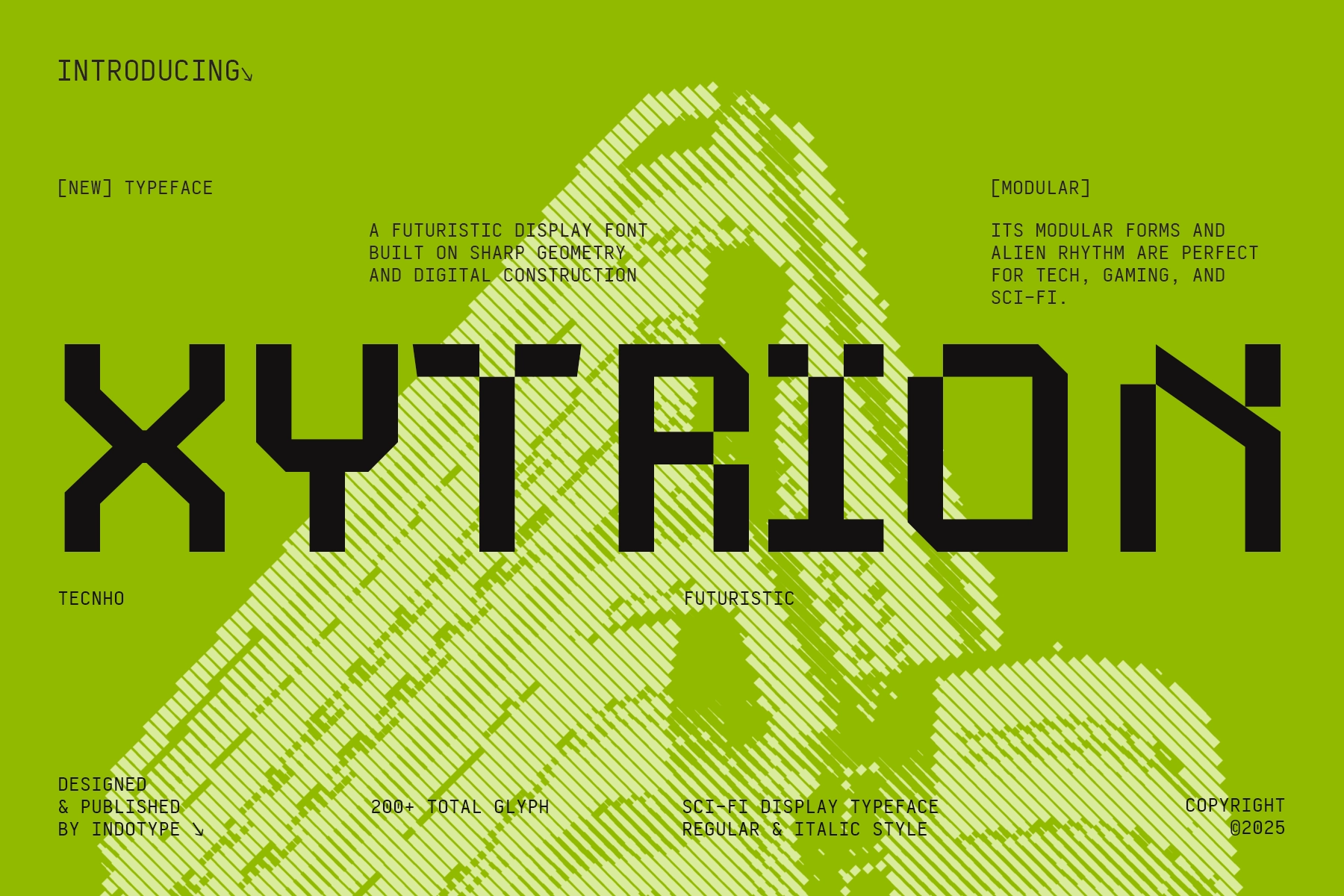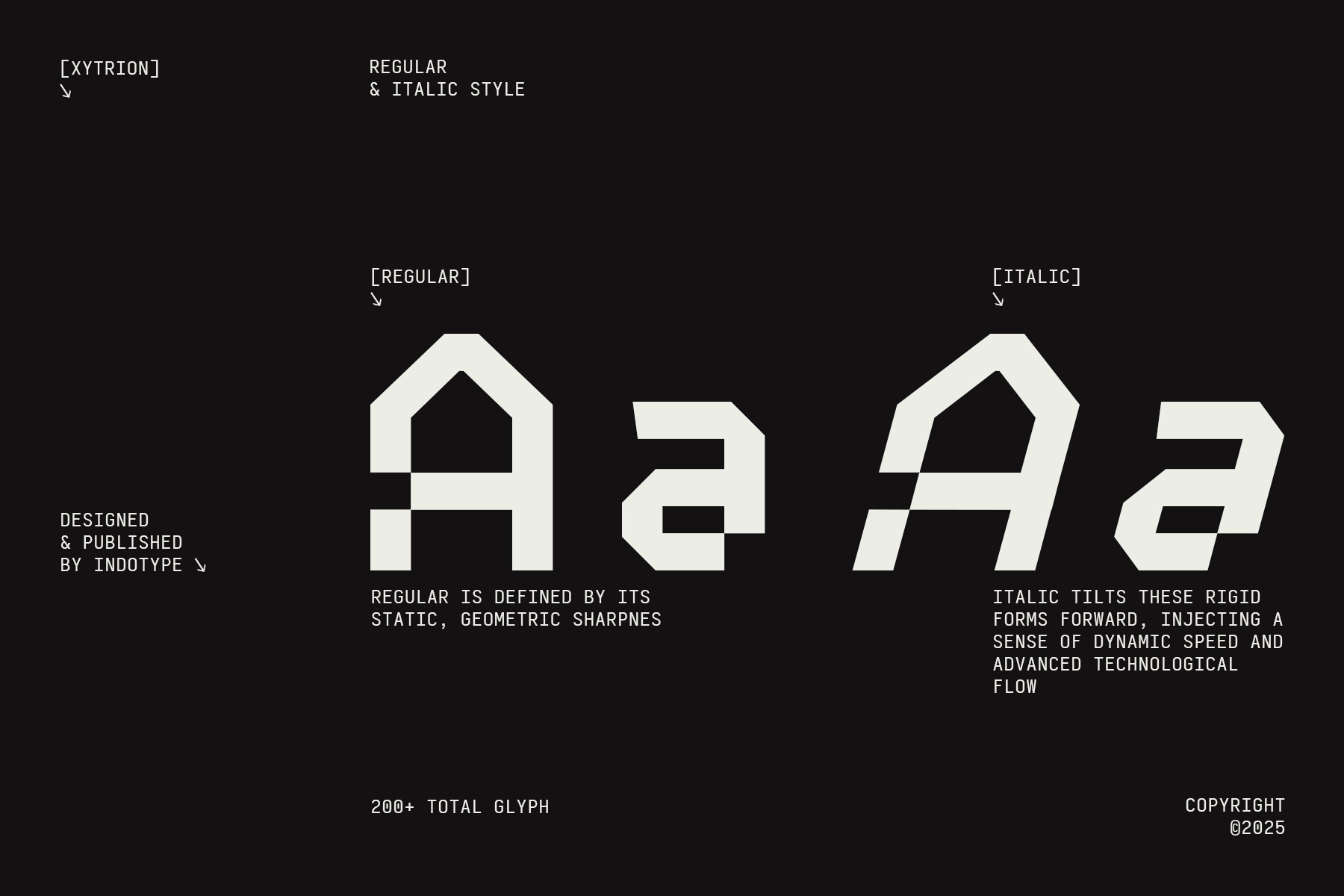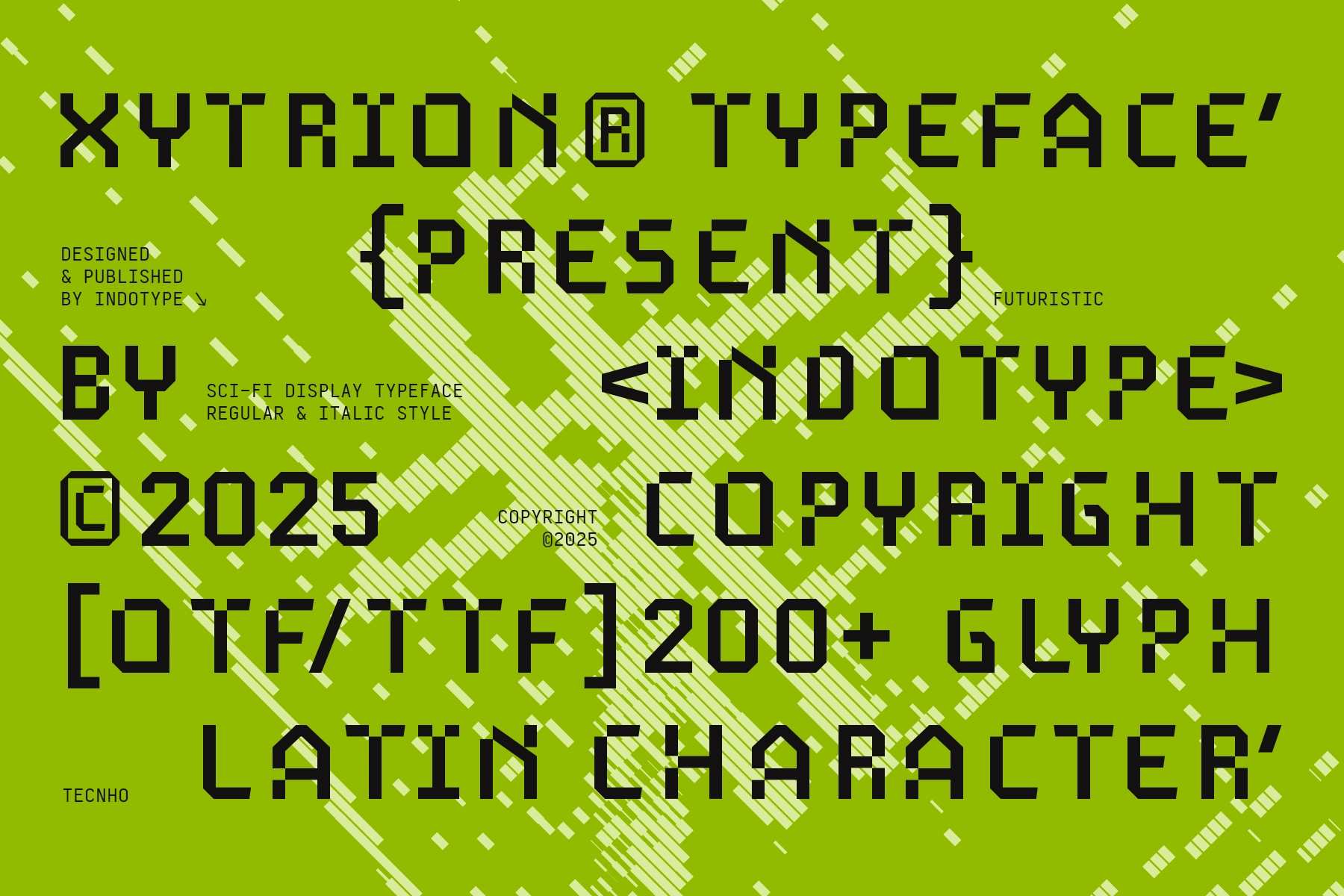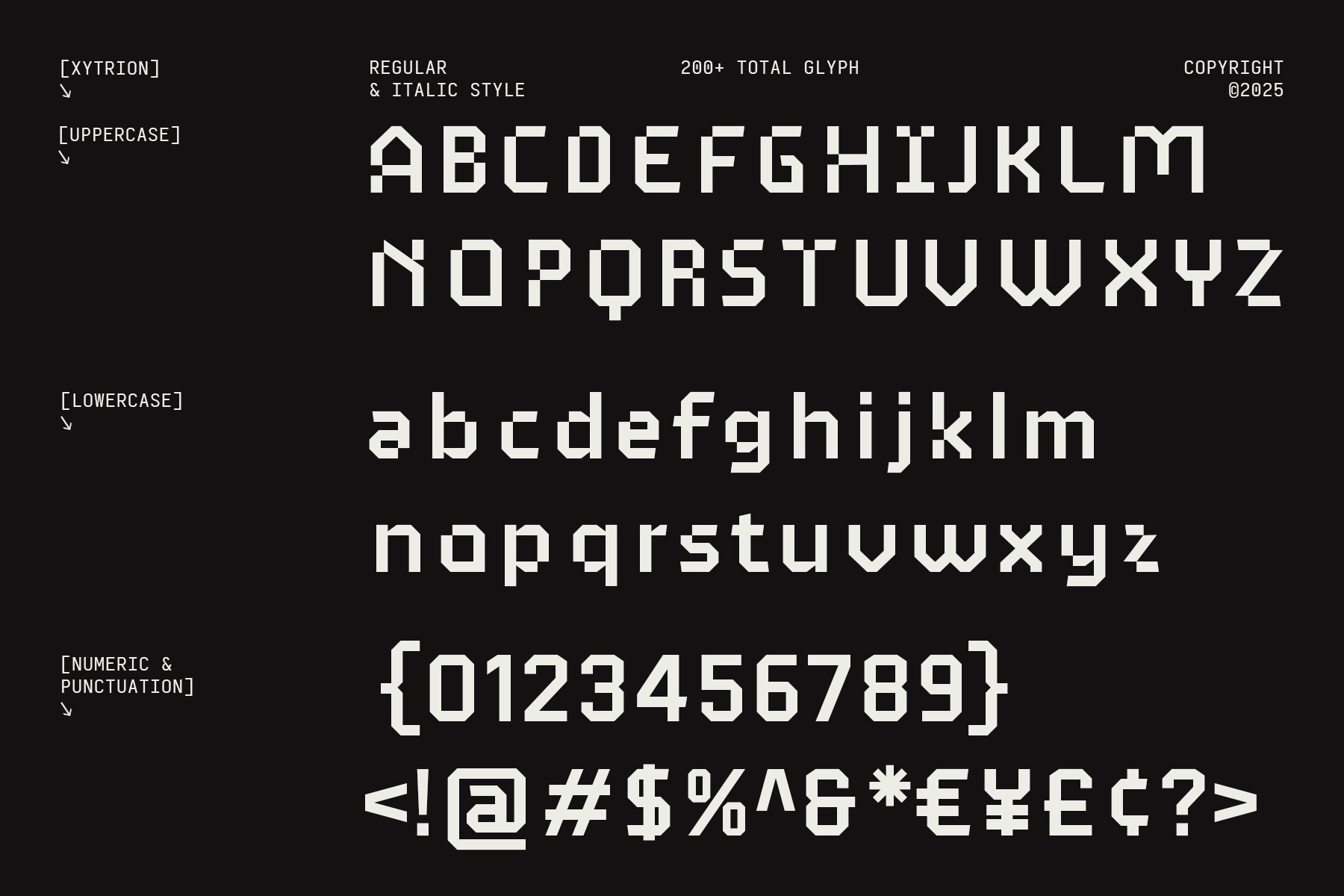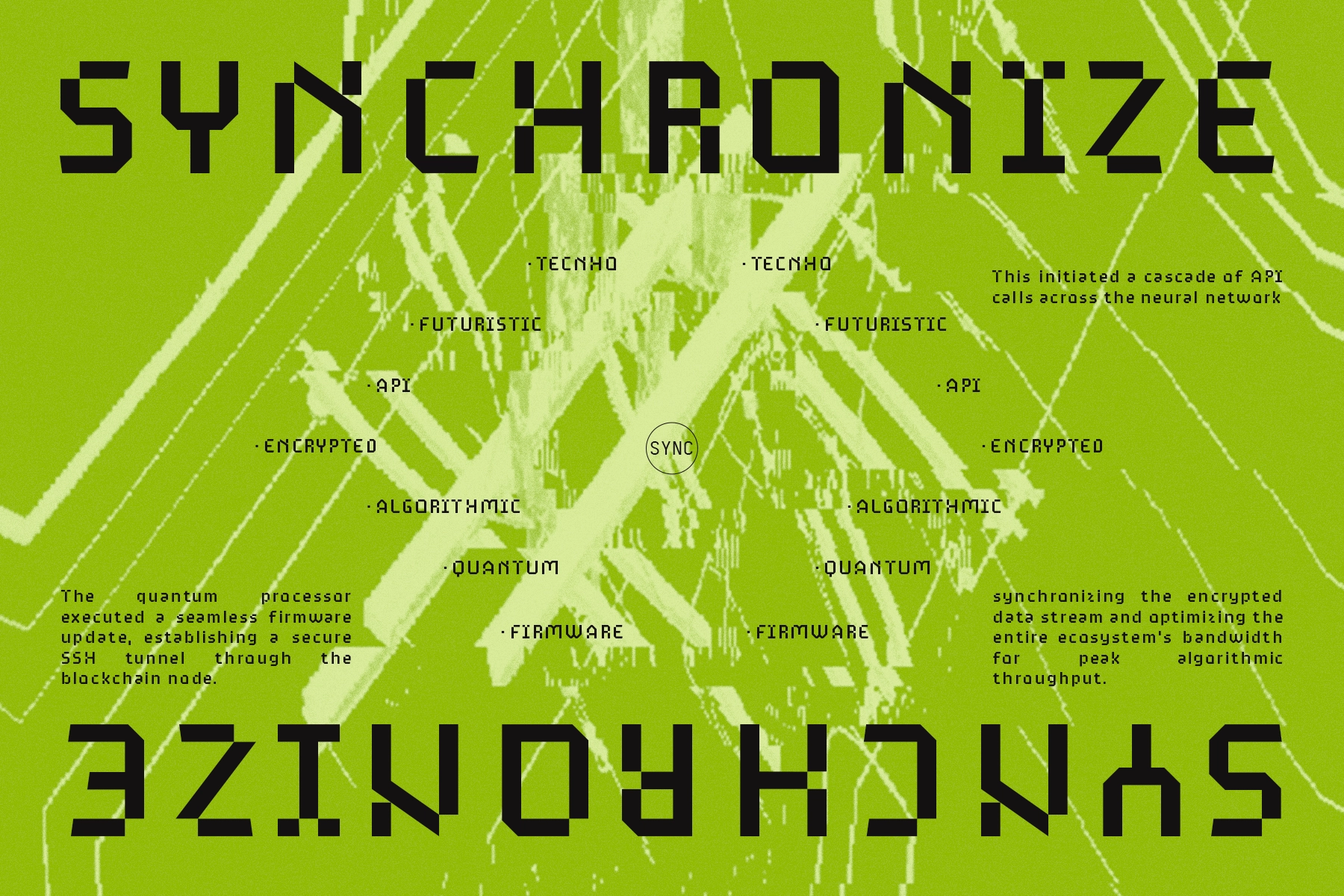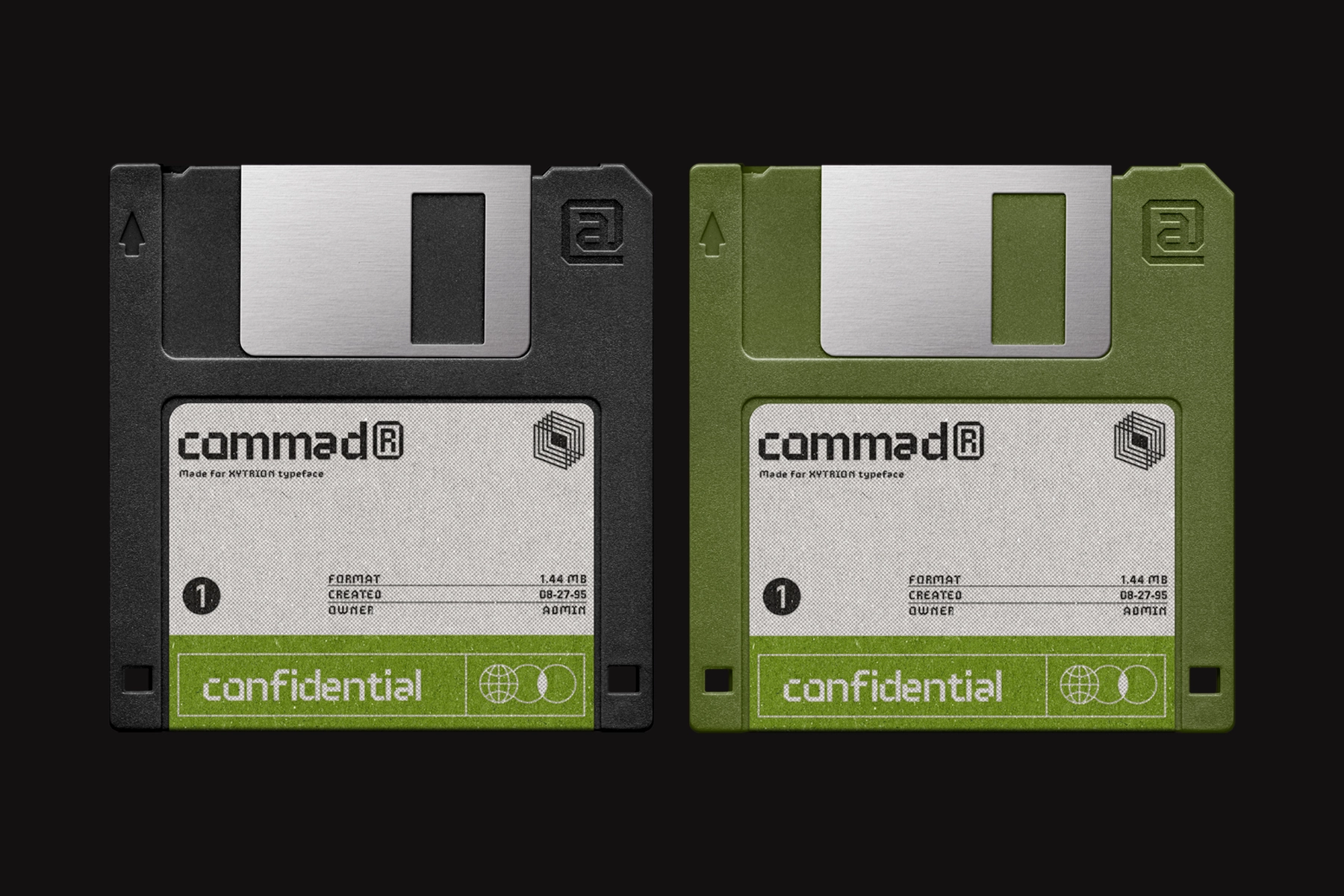
Xytrion - Futuristic Pixel Display Font
This futuristic display typeface is all sharp geometry , modular rhythm, and digital precision. Its angular letterforms and pixel-driven structure give headlines a sci-fi charge, with Regular and Italic styles ready for high-impact tech visuals.
Xytrion is a strong choice for gaming titles, cyberpunk posters, tech interfaces, sci-fi branding, futuristic logos, app splash screens, digital product campaigns, esports graphics, album covers, event visuals, merchandise, and more. The italic style adds motion and tension, while the full set keeps layouts structured for both screen-based work and print design.
• Display style
• Modular construction
• Geometric letterforms